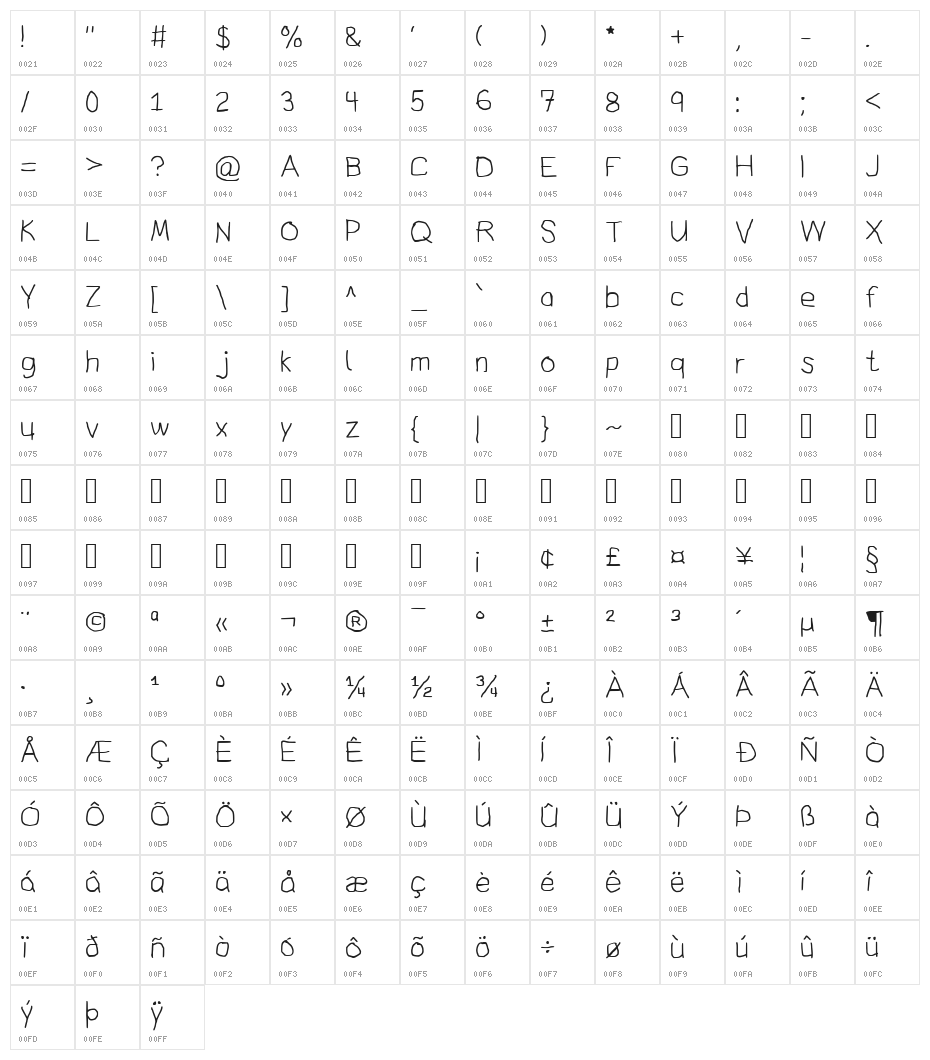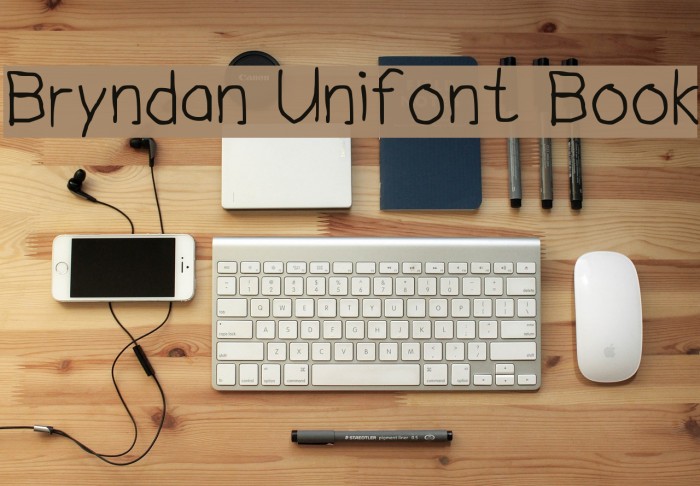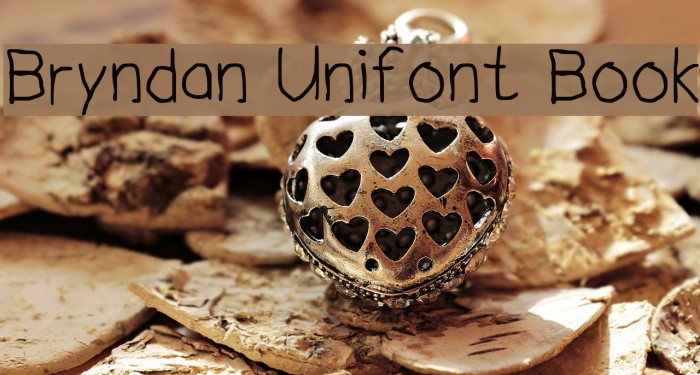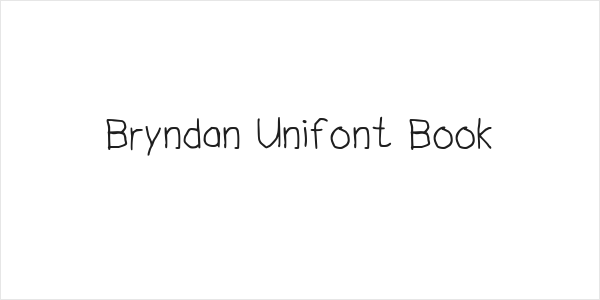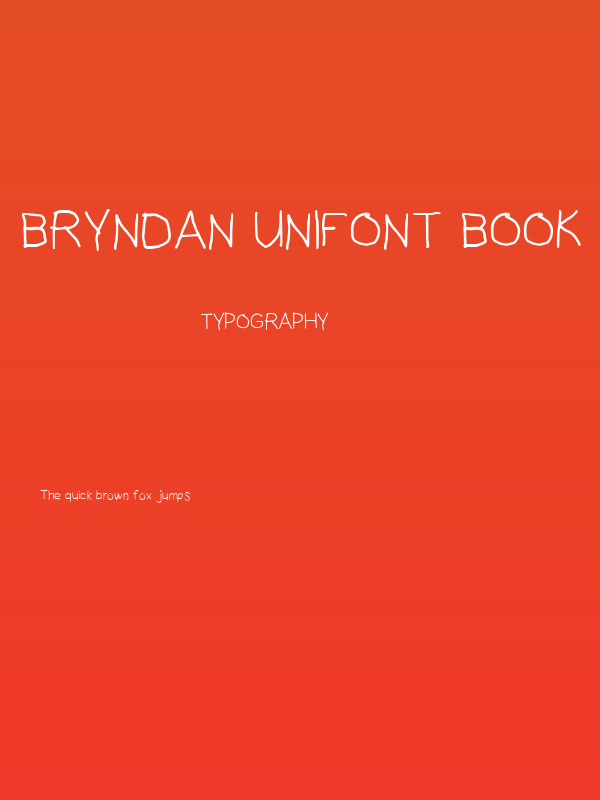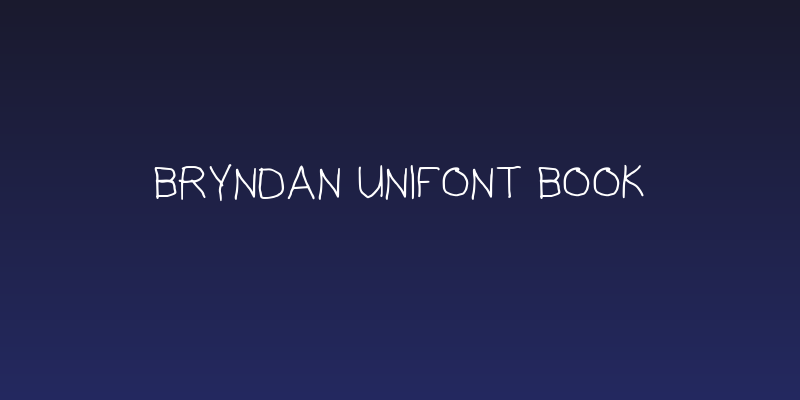
Bryndan Unifont Book Font
Bryndan Unifont Book Description
This font features a playful and casual handwritten style, characterized by its irregular strokes and slightly uneven baseline. The letters have a whimsical appearance, with a mix of rounded and angular shapes that give it a unique personality. The uppercase letters are bold and prominent, while the lowercase letters maintain a consistent flow, enhancing readability. Numbers and special characters follow the same playful design, making this font suitable for creative and informal projects. The overall look is approachable and friendly, making it ideal for conveying a relaxed and informal tone.
| Proposed Projects | Ideal for children's books, greeting cards, casual invitations, and playful branding. |